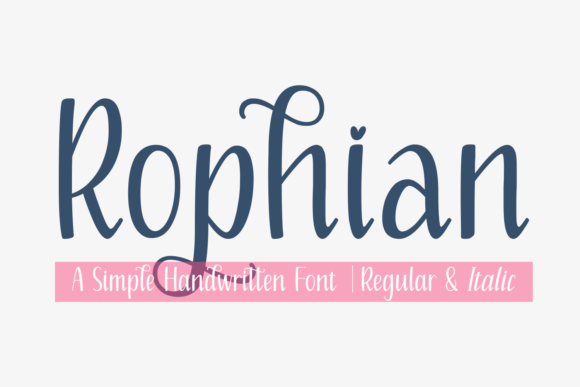
**Introducing Rophian: The Epitome of Elegance and Modernity**
Prepare to be mesmerized by Rophian, a script font that exudes sophistication and grace. Its carefully crafted curves and intricate details evoke a sense of timeless beauty, making it the perfect choice for those seeking to elevate their designs.
With its modern flair and classic elegance, Rophian flawlessly complements a wide array of projects, from sophisticated logos and branding to heartfelt invitations and wedding designs. Its versatility knows no bounds, extending to captivating social media posts and eye-catching stationery that leaves a lasting impression.
Rophian's meticulous PUA encoding unlocks a treasure trove of enchanting glyphs and ligatures, empowering you to effortlessly add a touch of whimsy and flair to your creations. Let your imagination soar as you explore the endless possibilities that await with this extraordinary font.
Embrace Rophian today and experience the transformative power of its captivating allure. Allow its timeless beauty to elevate your designs to unprecedented heights, leaving a lasting legacy of elegance and refinement.